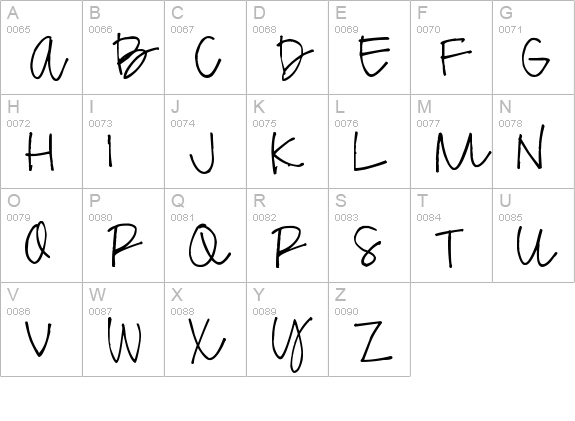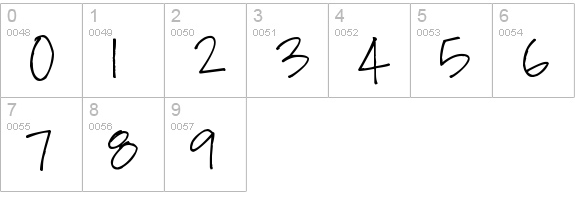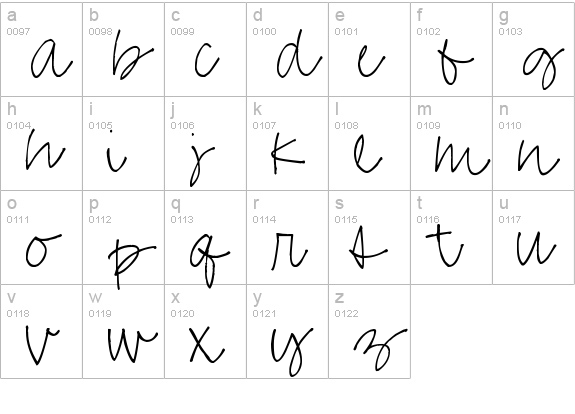
Pea Missy Cursive Font Details
Pea Missy Cursive font is a whimsical and charming script font that exudes elegance and sophistication. Its flowing strokes and delicate curves give a handwritten touch to any design project. Perfect for invitations, greeting cards, logos, and more, this lovely font adds a touch of grace and style to your creations. And the best part? Pea Missy Cursive font is available for free download at FontsMarket.com. So go ahead and elevate your designs with this beautiful and versatile font. Let your creativity shine with Pea Missy Cursive!